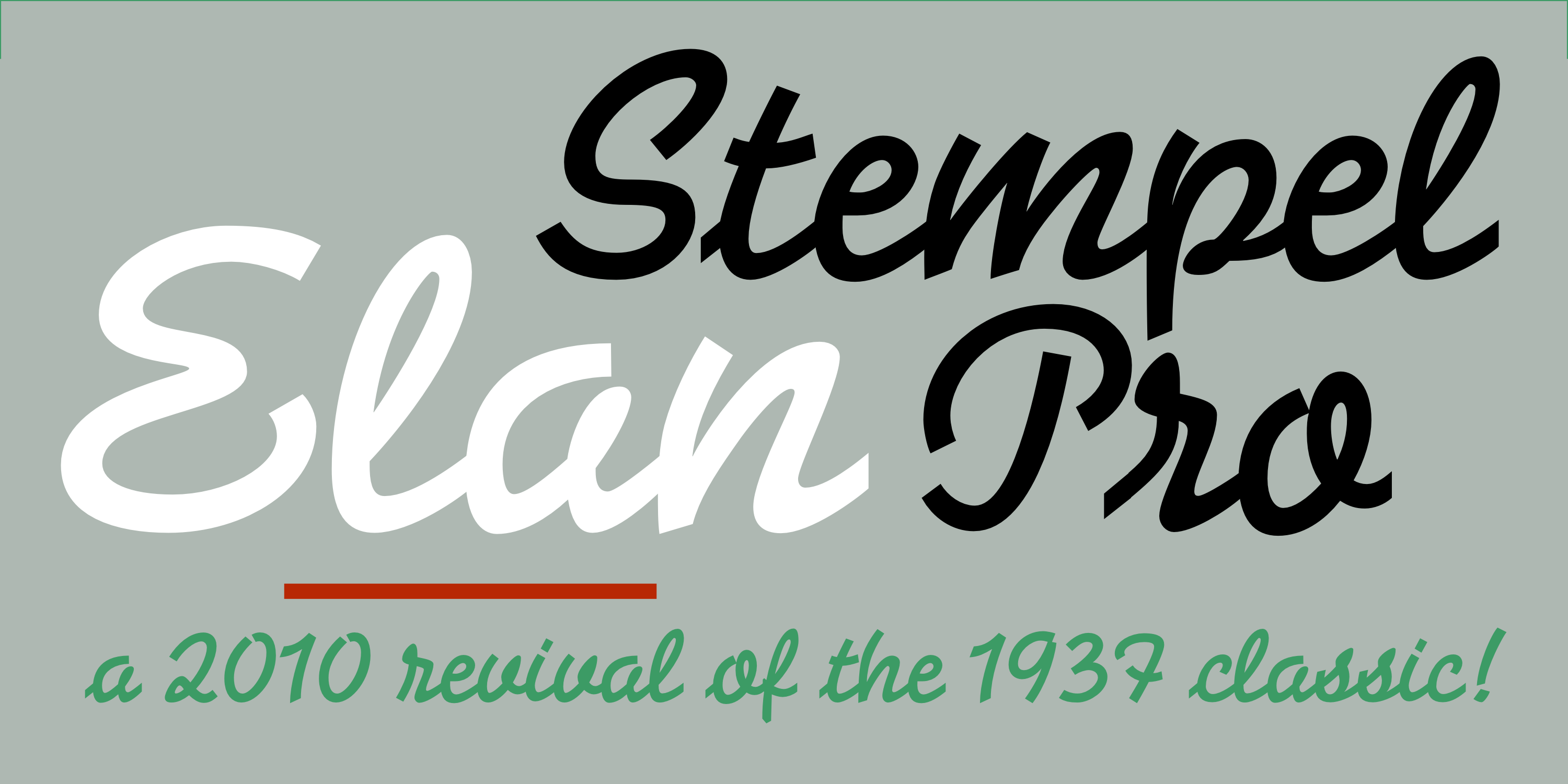
Stempel Elan Font excels in high-fashion editorial layouts, luxury cosmetics packaging, sophisticated art gallery catalogs, premium lifestyle magazines, elegant corporate presentations, refined wedding stationery, upscale boutique branding, and exclusive cultural event materials. Its graceful sophistication makes it perfect for projects requiring refined elegance and contemporary style.
What makes Stempel Elan Font exciting is its remarkable ability to embody effortless sophistication through gracefully flowing letterforms that exude contemporary elegance and refined taste. The masterfully balanced construction features subtle curves with perfect proportions that create an atmosphere of cultured refinement. This typeface embodies modern grace and stylish confidence, making every design feel polished and distinctively sophisticated.
Stempel Elan Font family includes Regular, Bold, Light, Italic, Medium, and Display variations, providing designers with comprehensive tools for creating elegant and impactful typographic solutions across diverse luxury applications.
Elevate your creative vision with the sophisticated grace of Stempel Elan Font Free Download. This exceptional typeface brings contemporary elegance to any design endeavor, whether you're developing brand identities for luxury services, crafting editorial layouts for premium publications, or designing materials for exclusive events. The font's refined architecture and elegant presence make it indispensable for projects requiring sophisticated appeal. Stempel Elan Font perfectly captures the essence of modern sophistication while ensuring optimal readability across all upscale applications. Its graceful character forms and elegantly-inspired design language make it ideal for brands seeking to communicate refined taste and contemporary style, delivering memorable results that resonate with discerning audiences who appreciate subtle luxury, effortless elegance, and the distinctive charm of sophisticated design excellence.